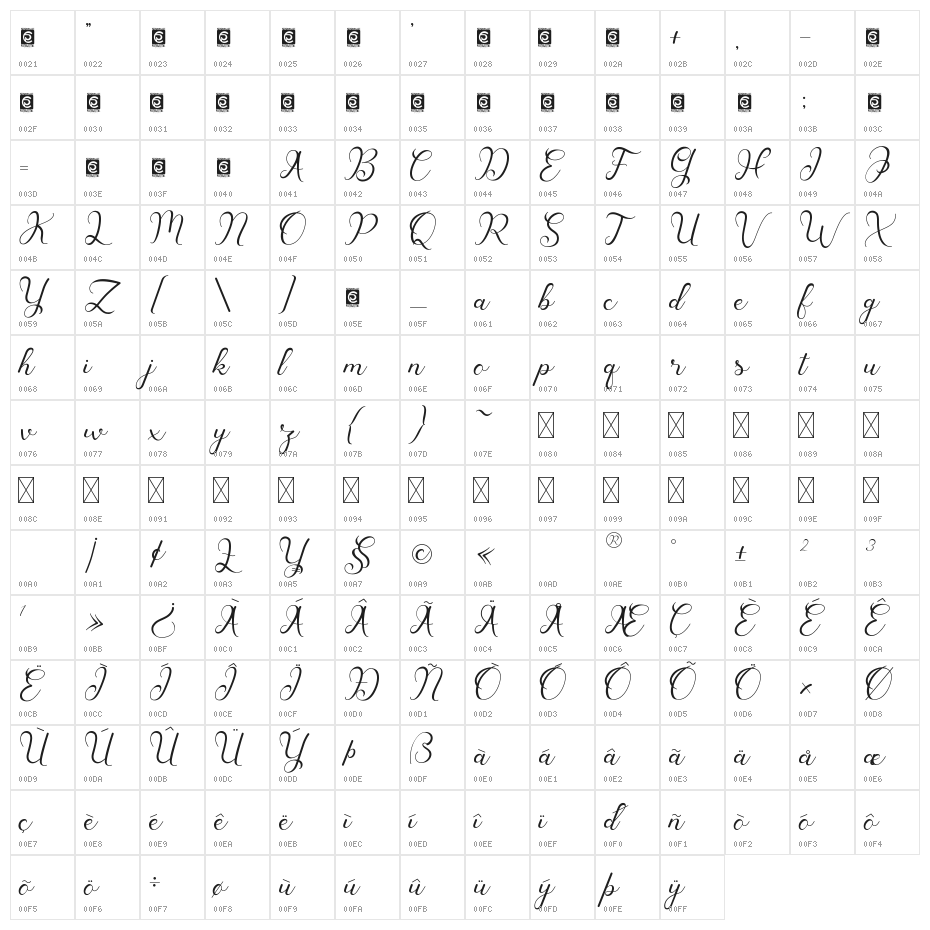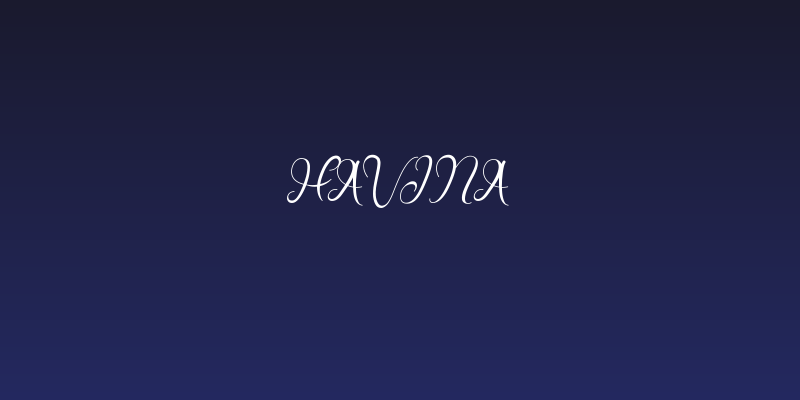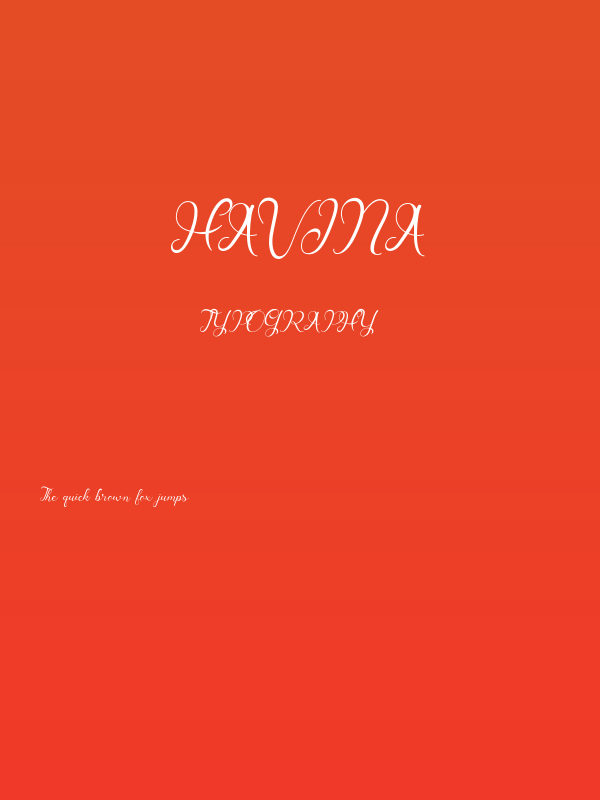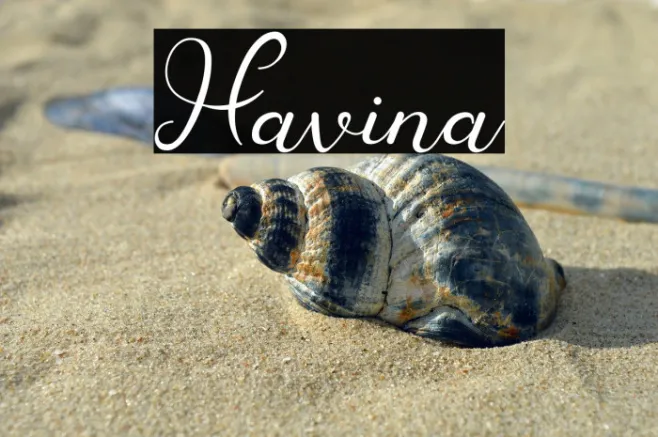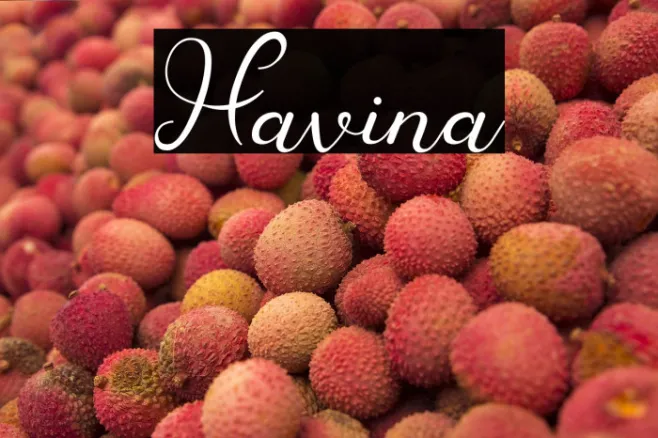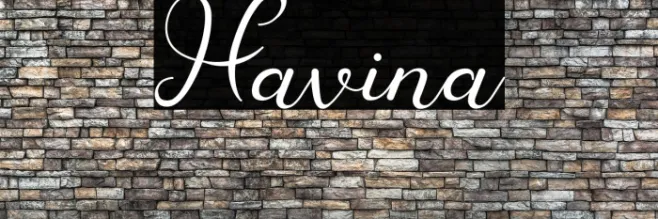
Havina Font
Havina Description
This elegant script font features flowing, interconnected letters that evoke a sense of sophistication and grace. The uppercase letters are ornate, with sweeping curves and flourishes that add a decorative touch. The lowercase letters maintain a consistent style, with smooth transitions and a slightly slanted orientation, enhancing the font's fluidity. The numerals and special characters are designed to complement the overall aesthetic, making it suitable for formal invitations, branding, and artistic projects. The font's delicate lines and intricate details make it stand out, while its readability ensures it remains functional.
| Use Case | Headlines, Invitations, Branding |
| Proposed Projects | Ideal for wedding invitations, luxury branding, greeting cards, and artistic designs. |